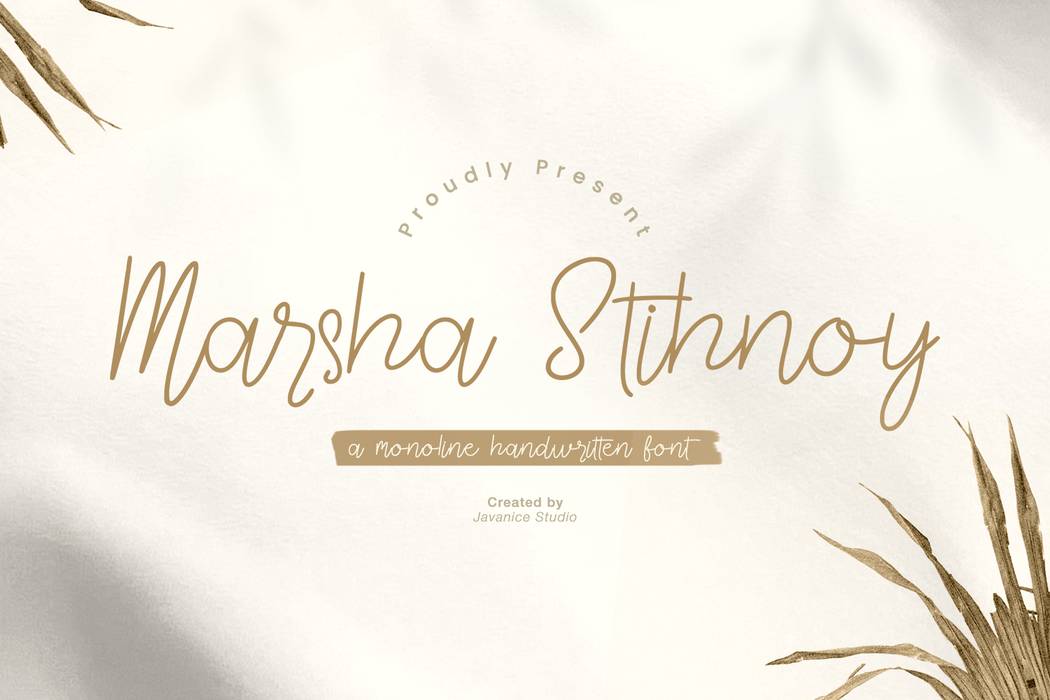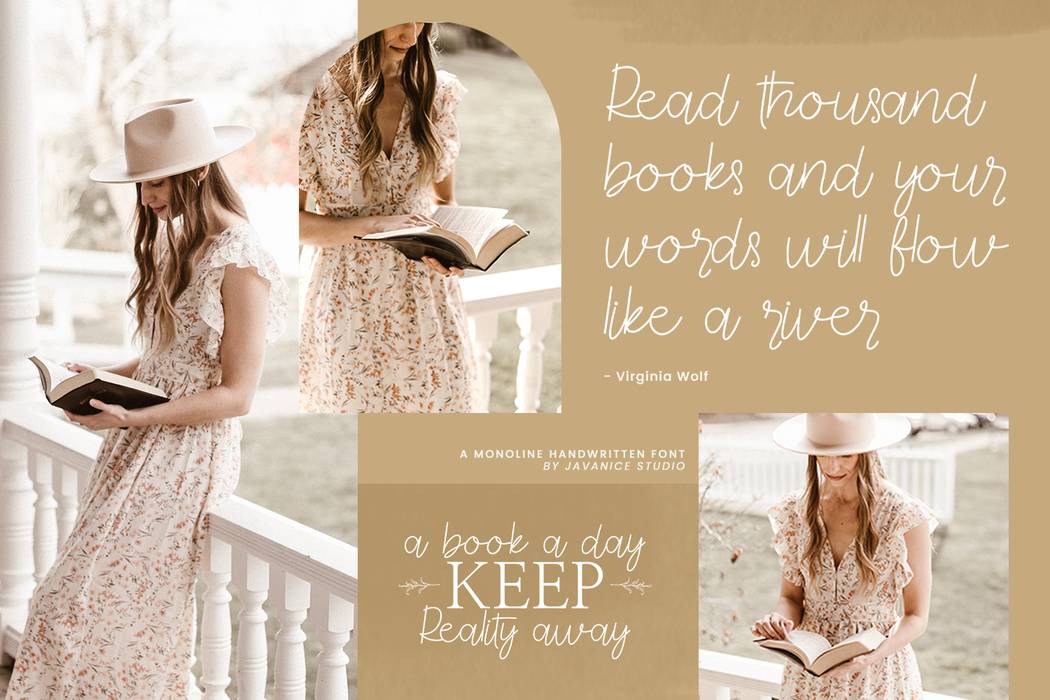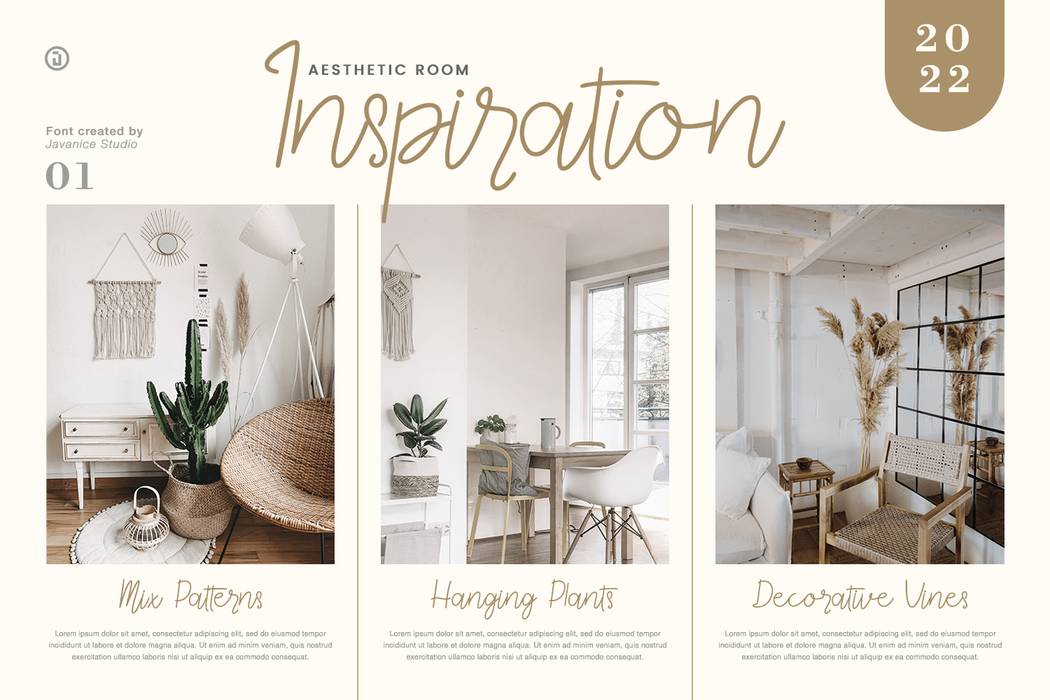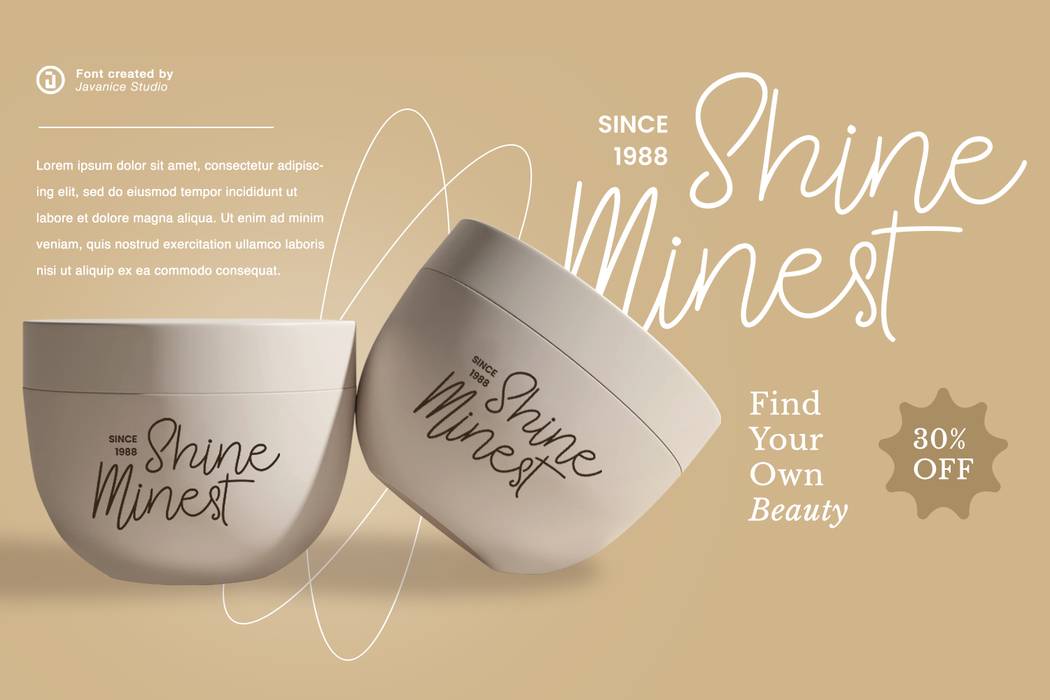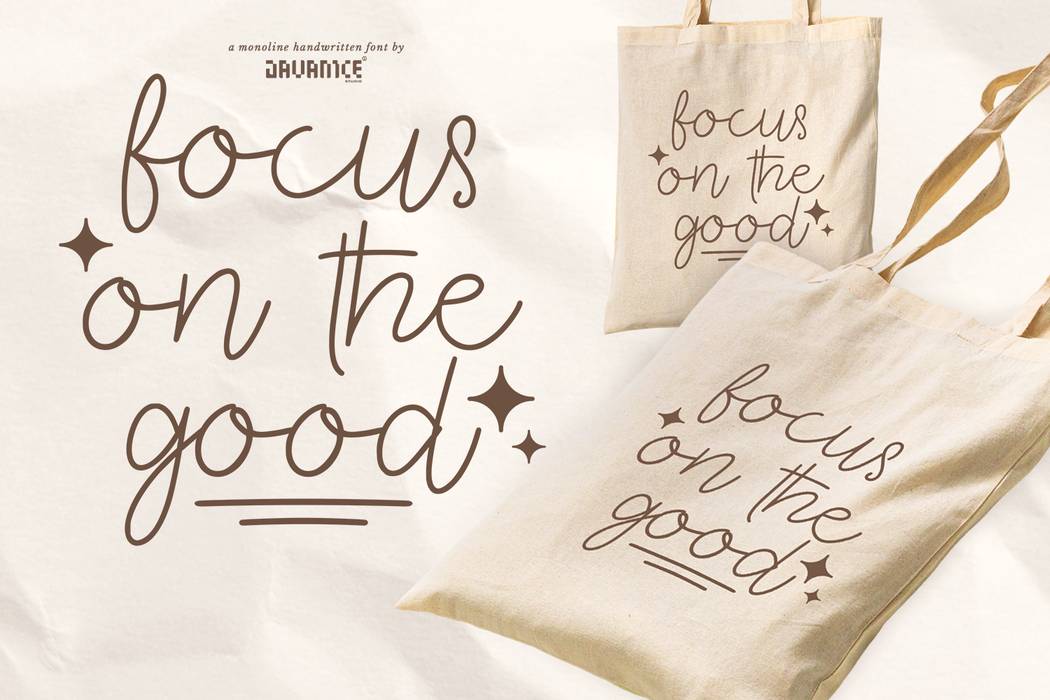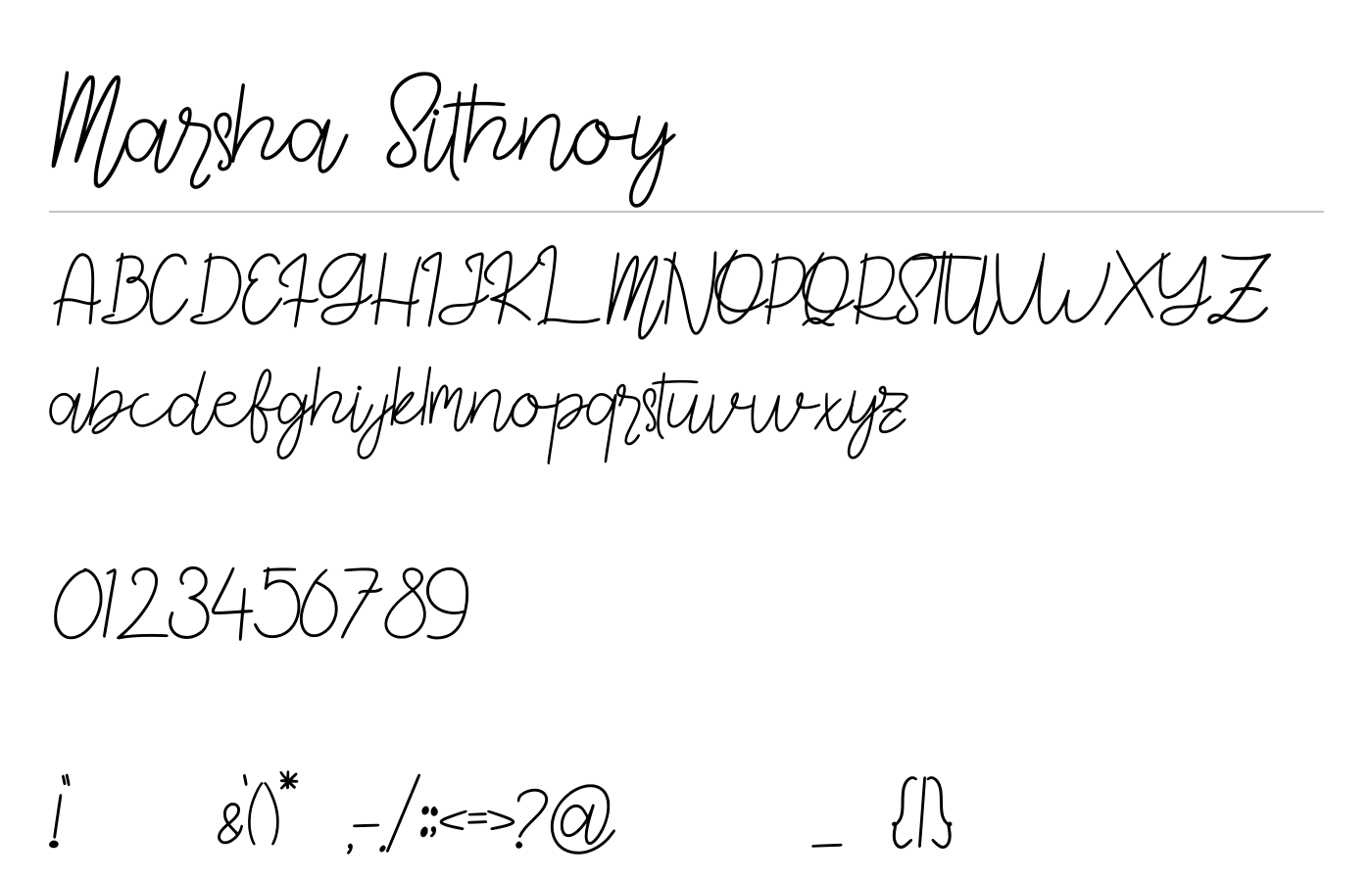
Marsha Stihnoy is a delicate, handwritten script font with a light and airy feel, characterized by its tall, slightly condensed letterforms and smooth, flowing strokes. It exudes a casual yet elegant personality, making it ideal for personal branding, invitations, and creative projects that want to convey a friendly, approachable vibe. This font works especially well in headlines or short text where its unique, playful style can shine without losing readability.
Marsha Stihnoy Font
About Marsha Stihnoy Font
| Font family | Marsha Stihnoy Font |
| Designer | JAVANICE STUDIO |